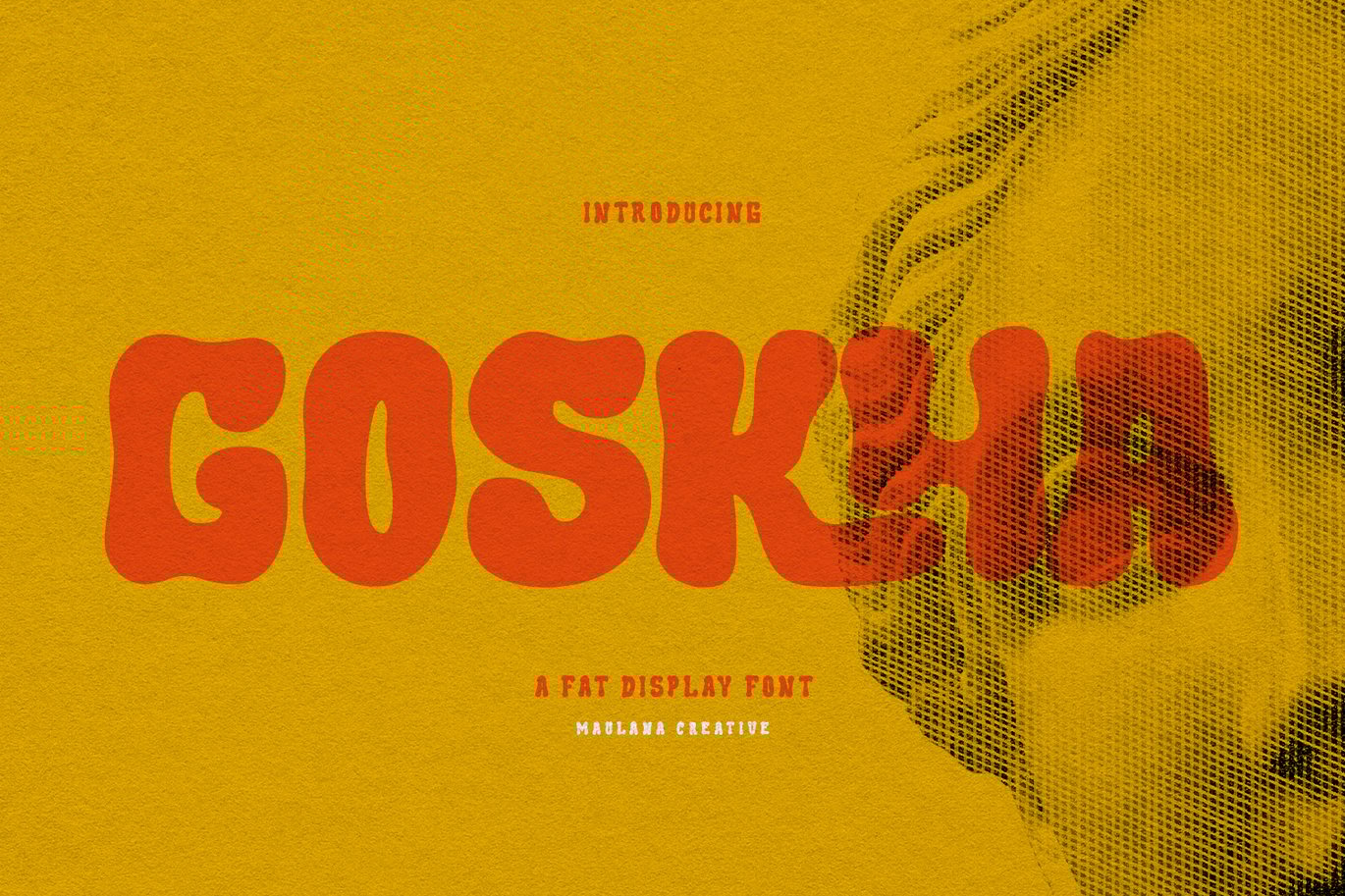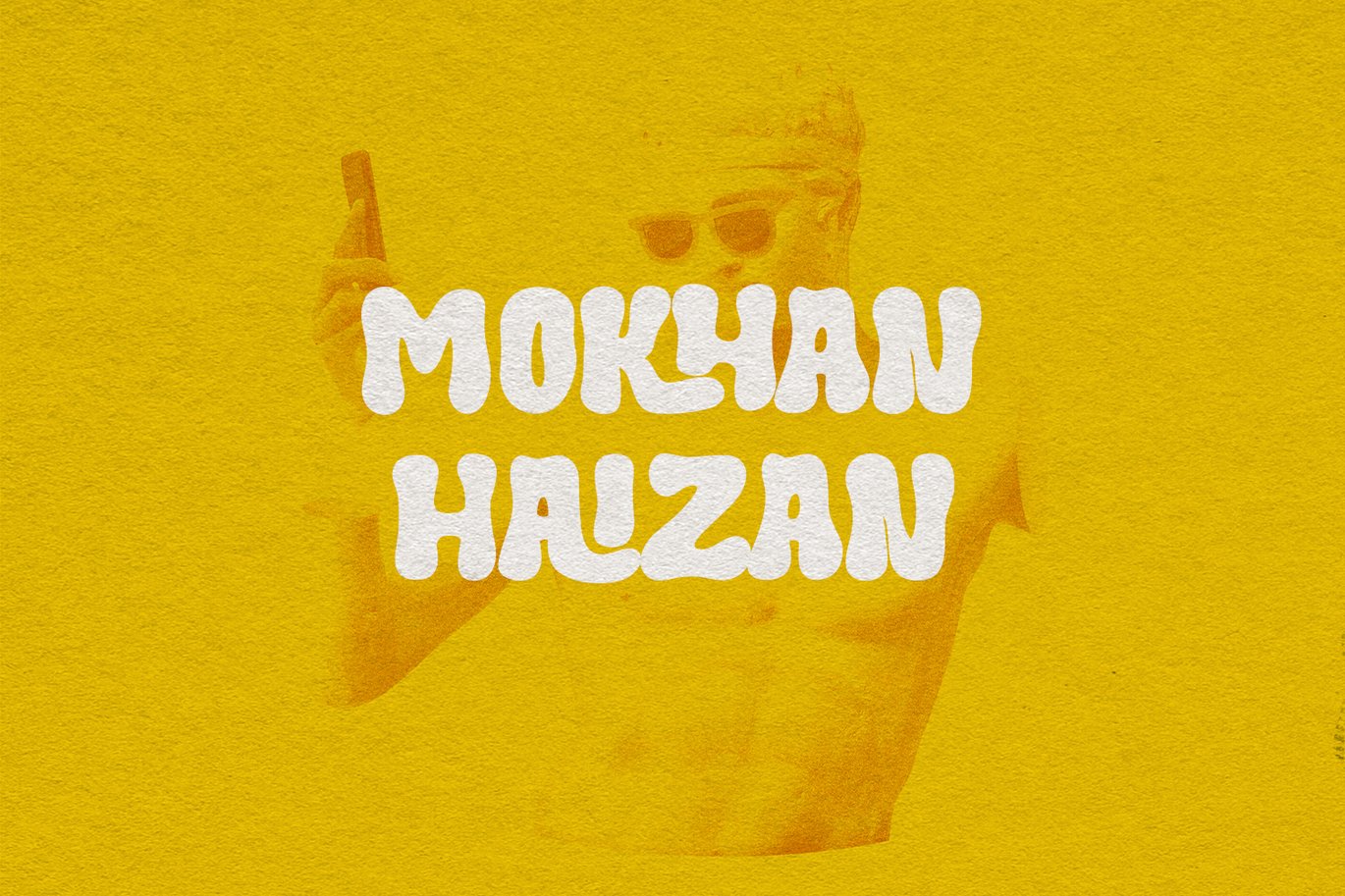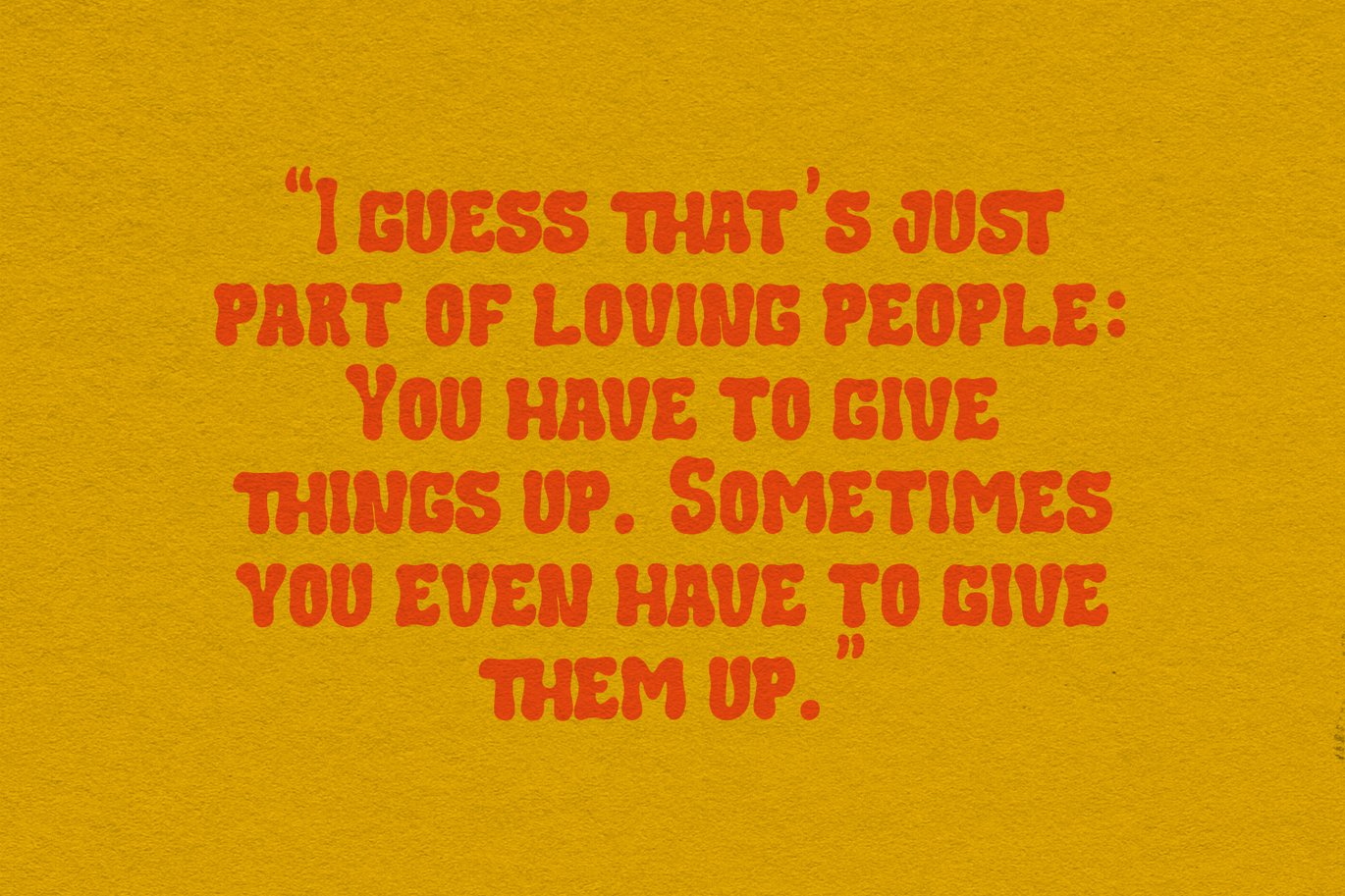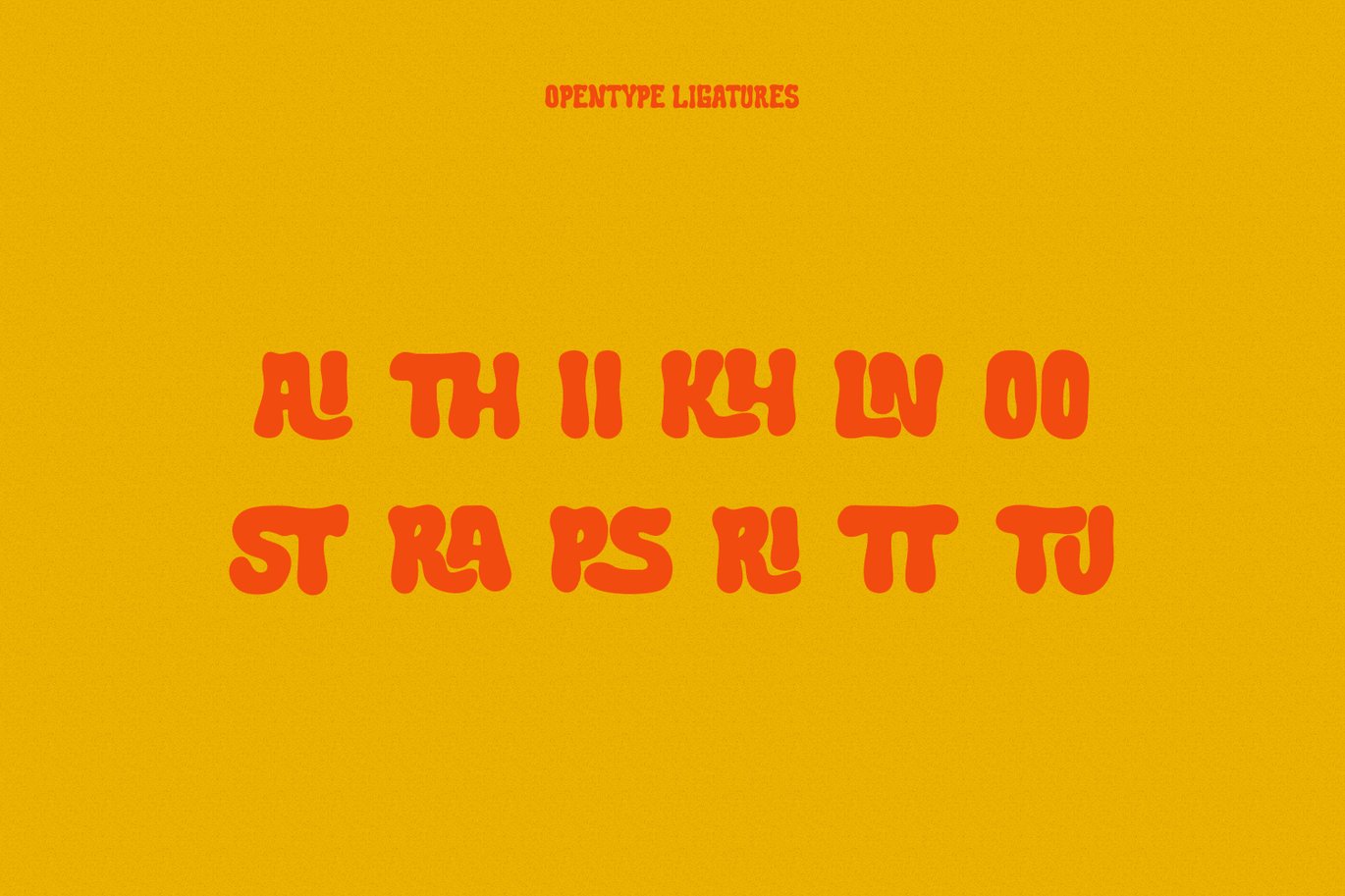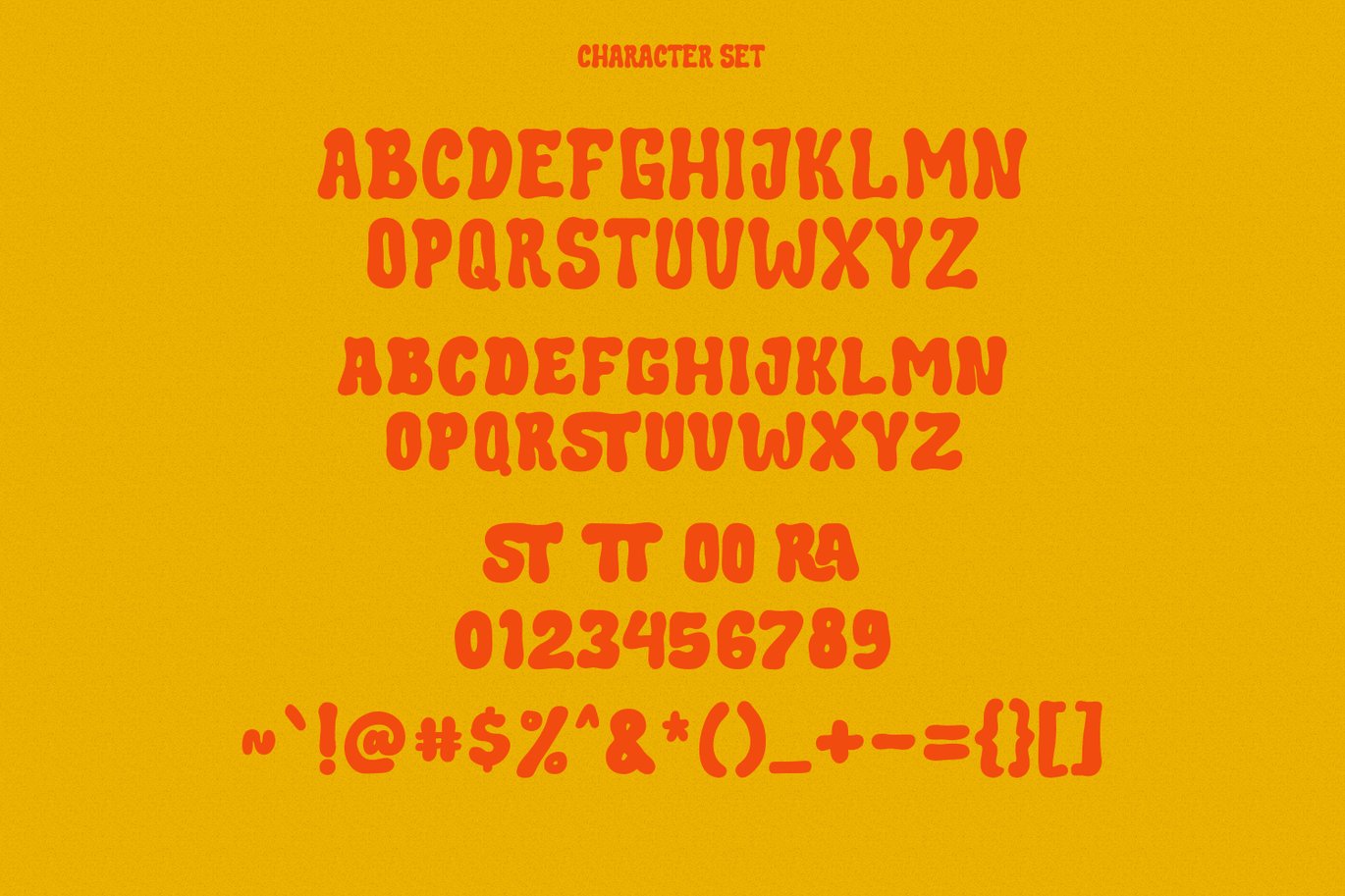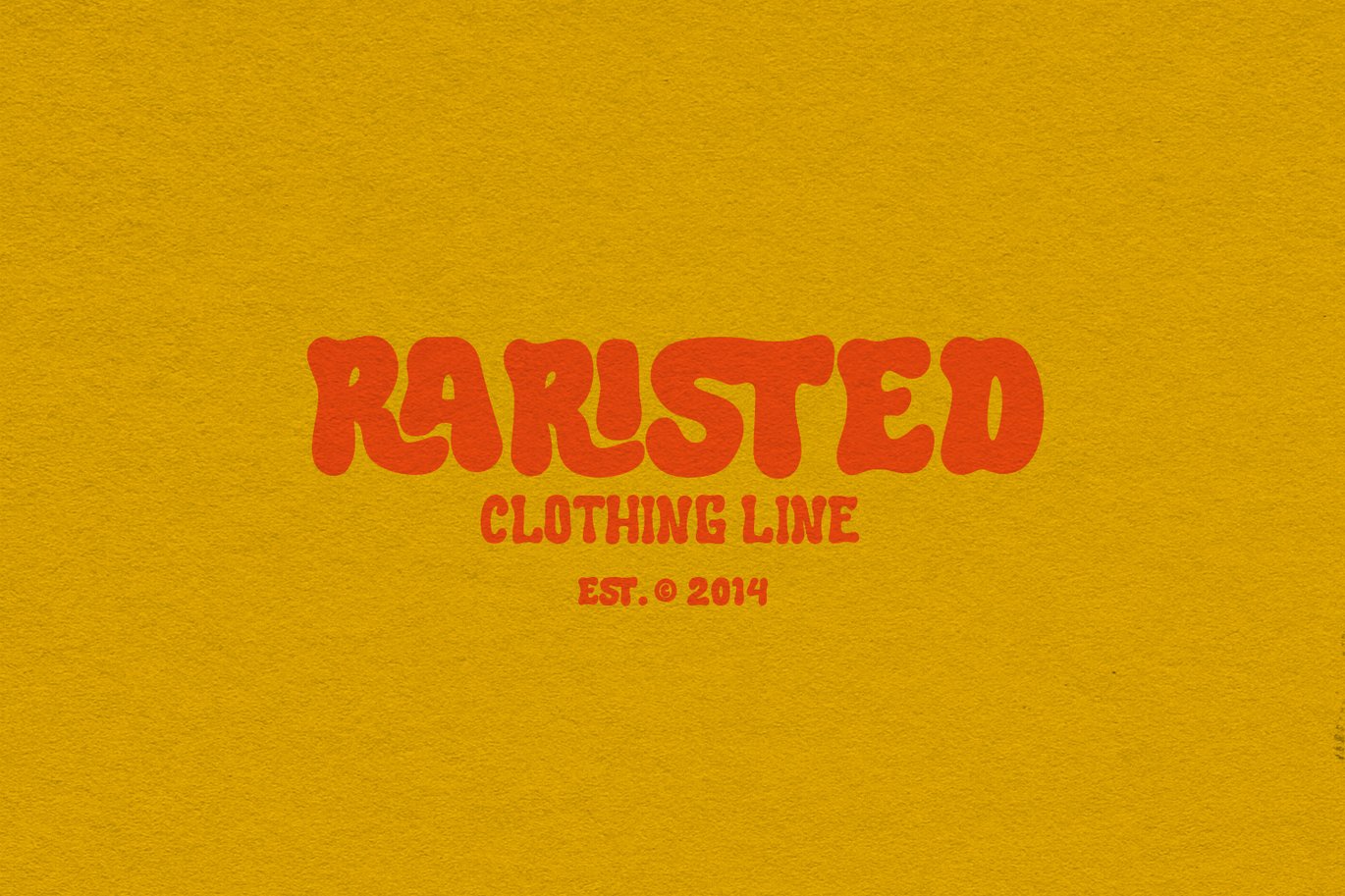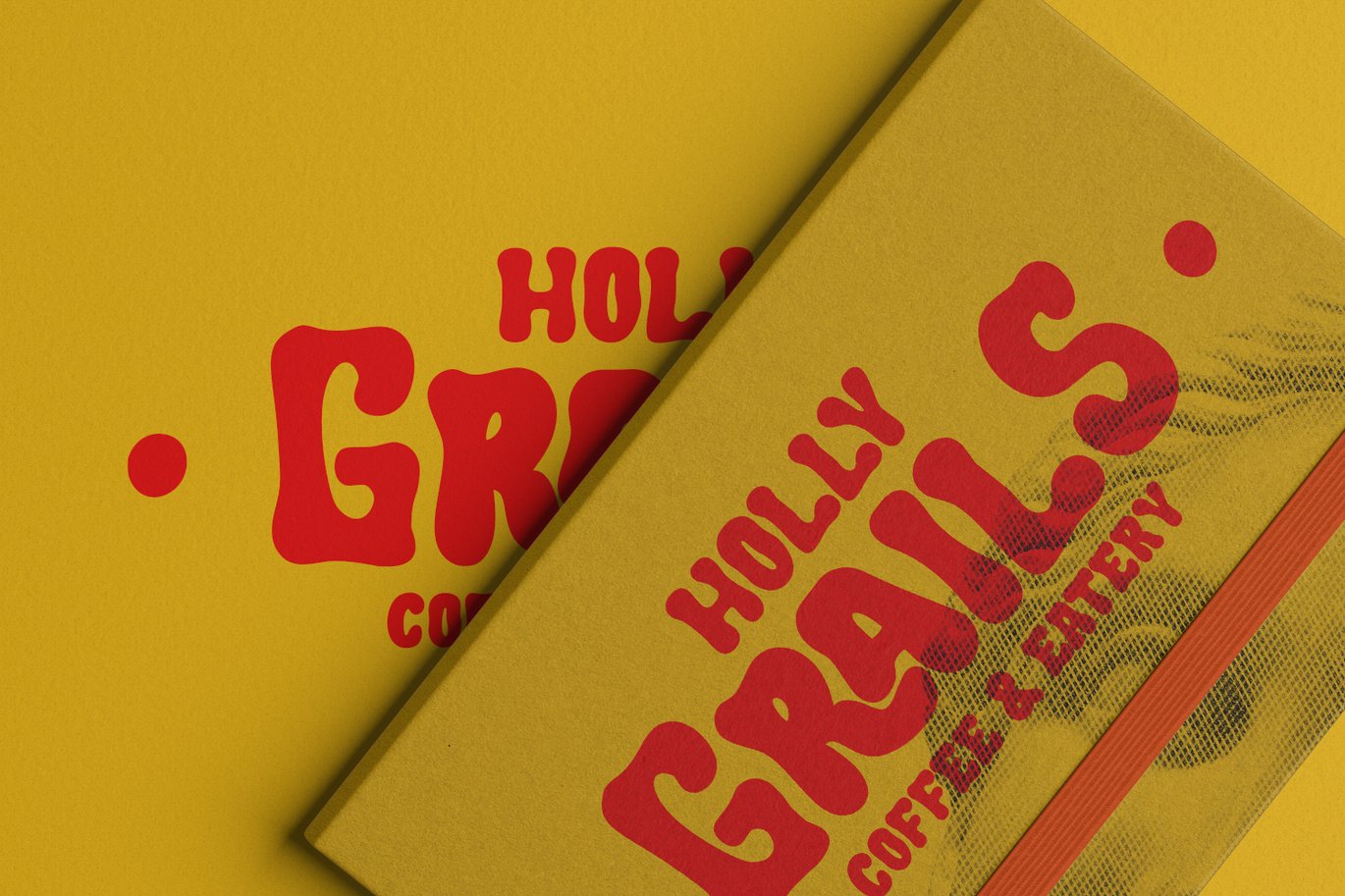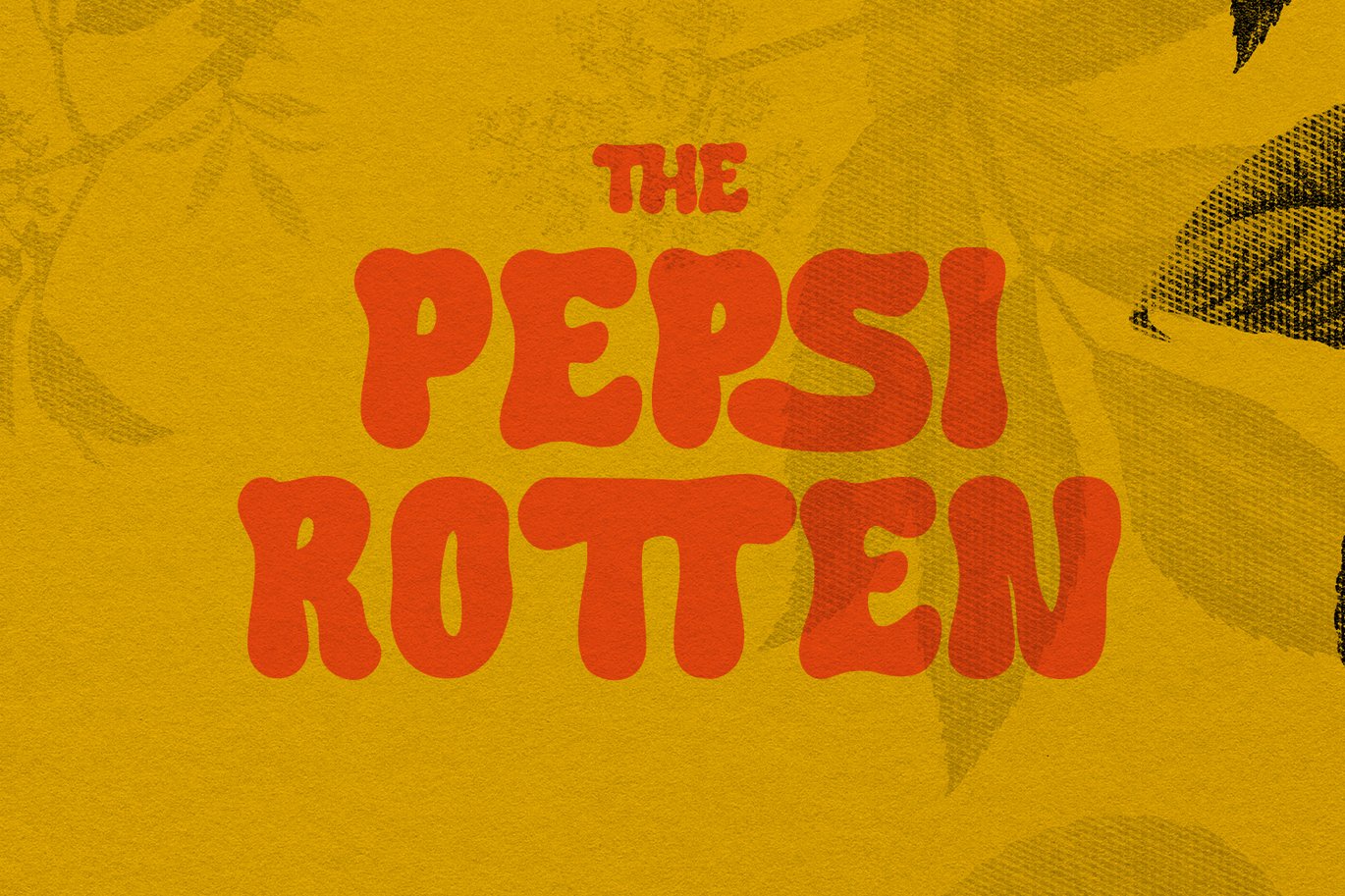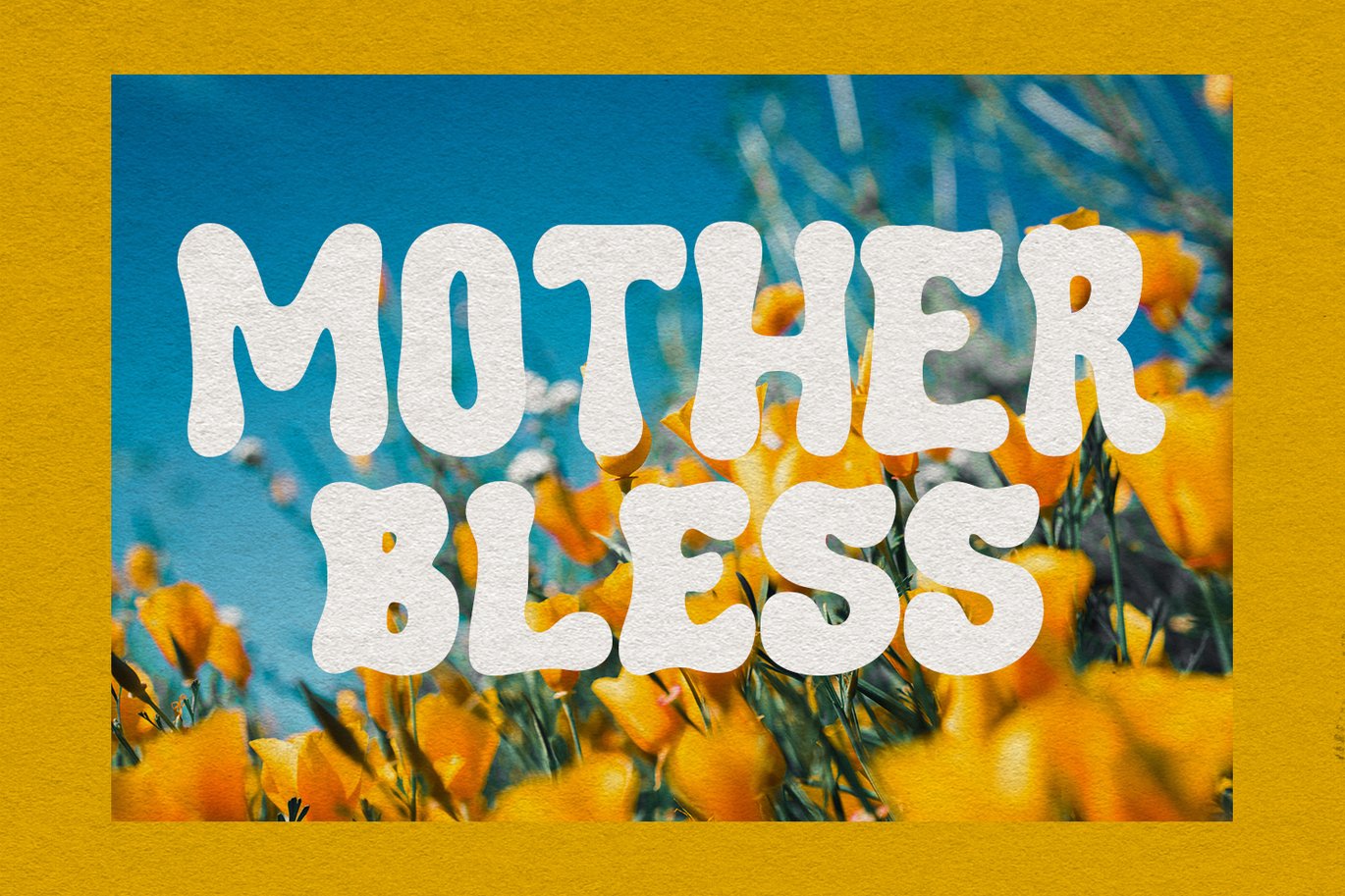
Goskha Display Font
Goskha is a decorative handwritten display font. With bold stroke, fun character with a bit of ligatures. To give you an extra creative work. Goskha font support multilingual more than 100+ language. This font is good for logo design, Social media, Movie Titles, Books Titles, a short text even a long text letter and good for your secondary text font with sans or serif. Make a stunning work with Goskha font.